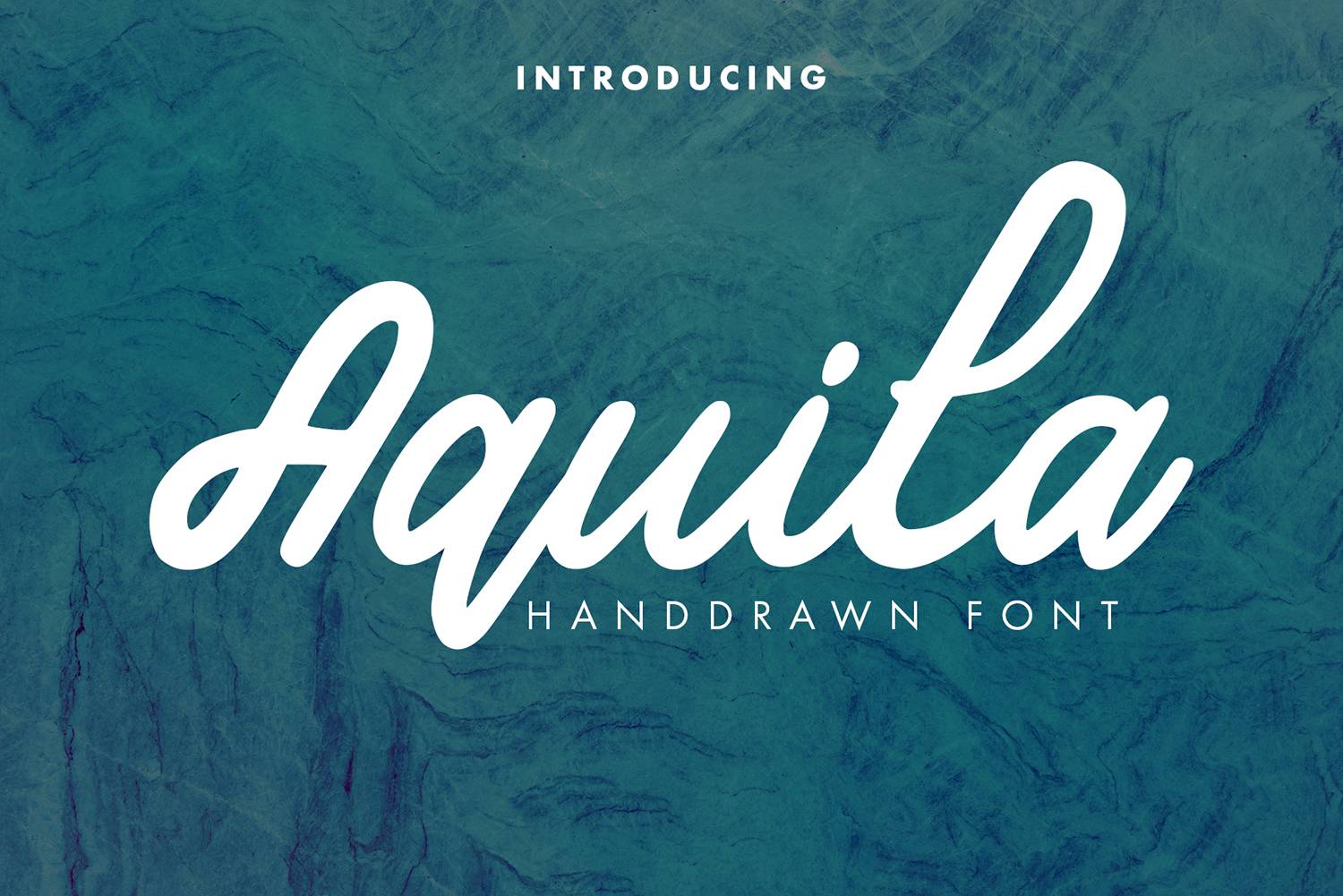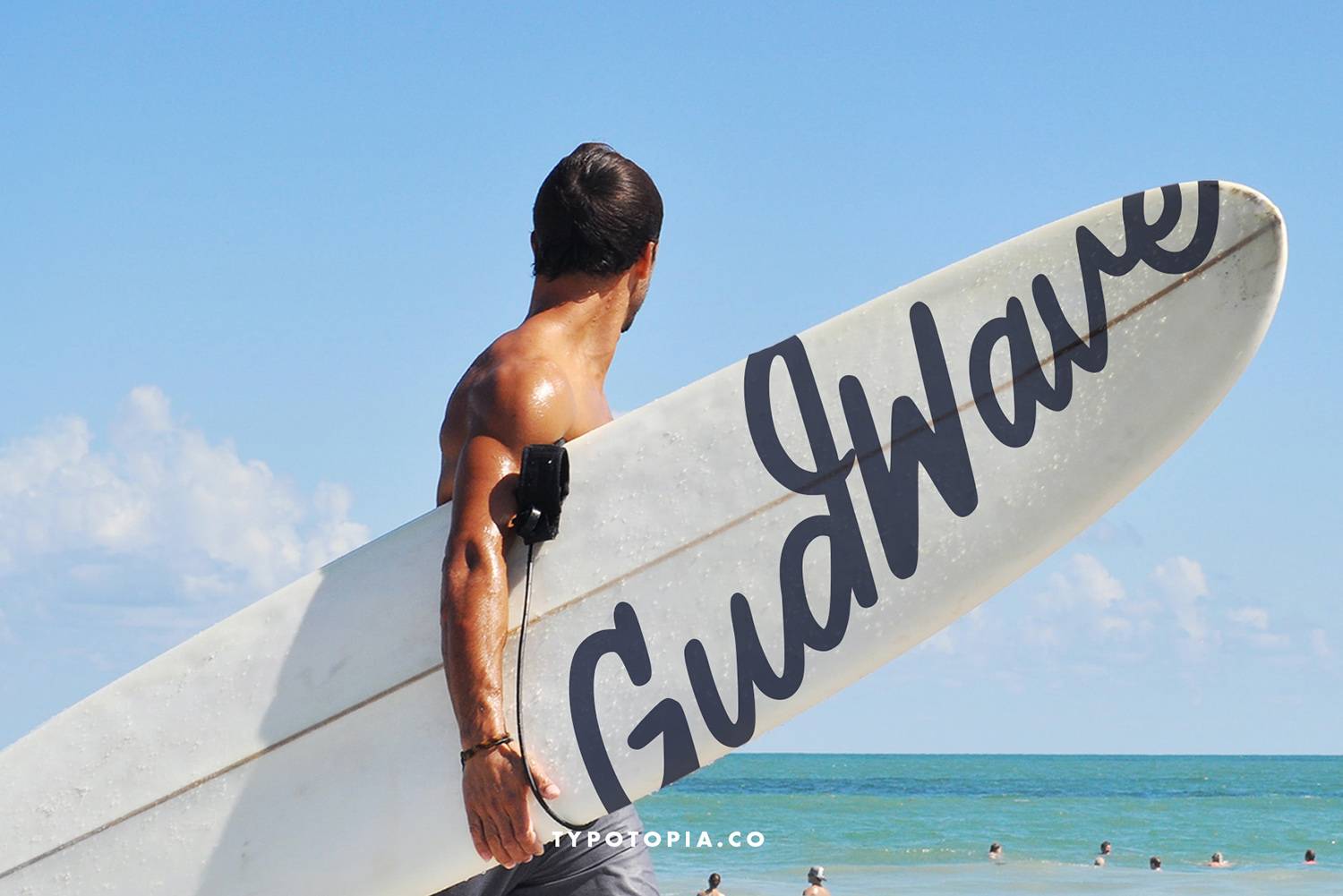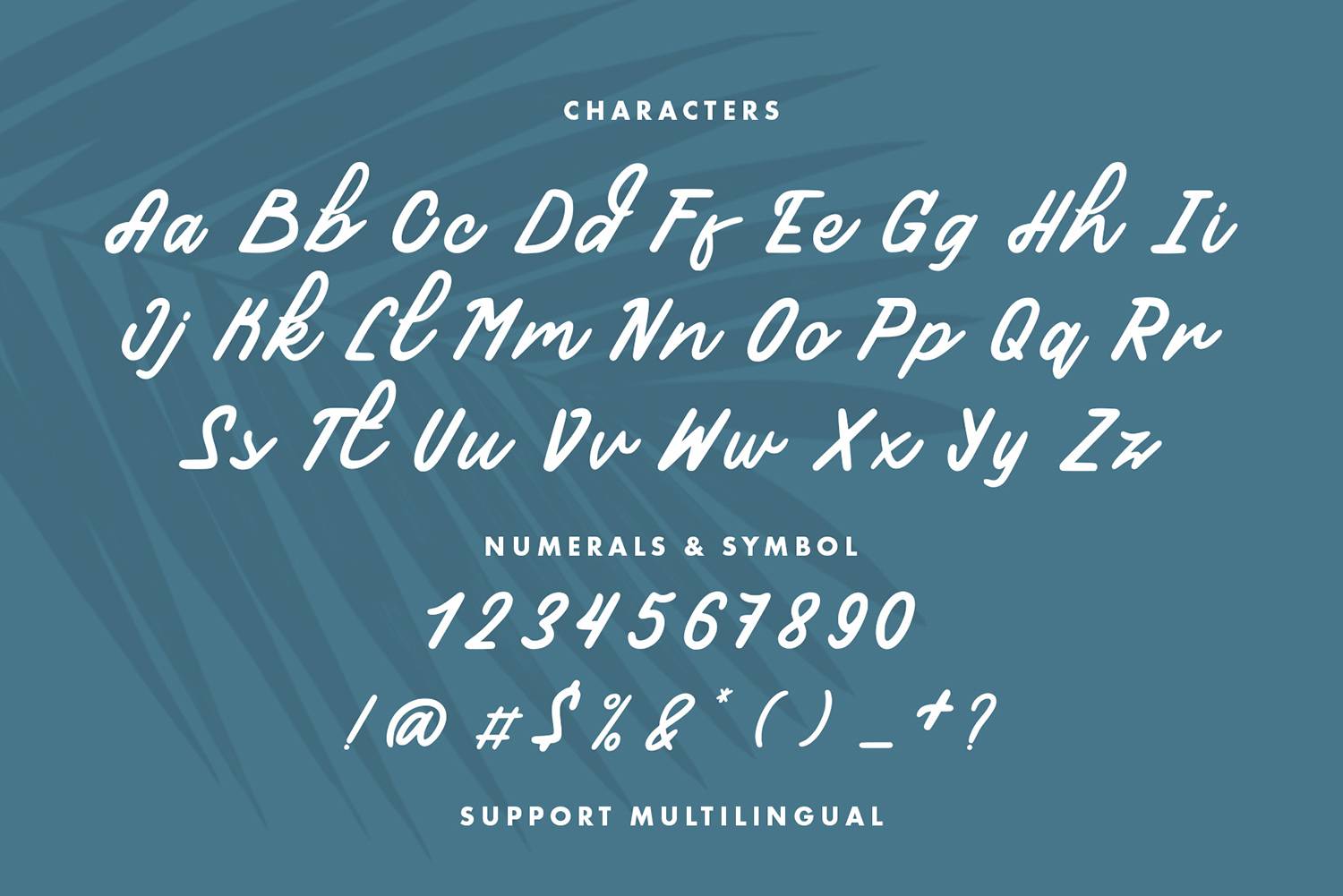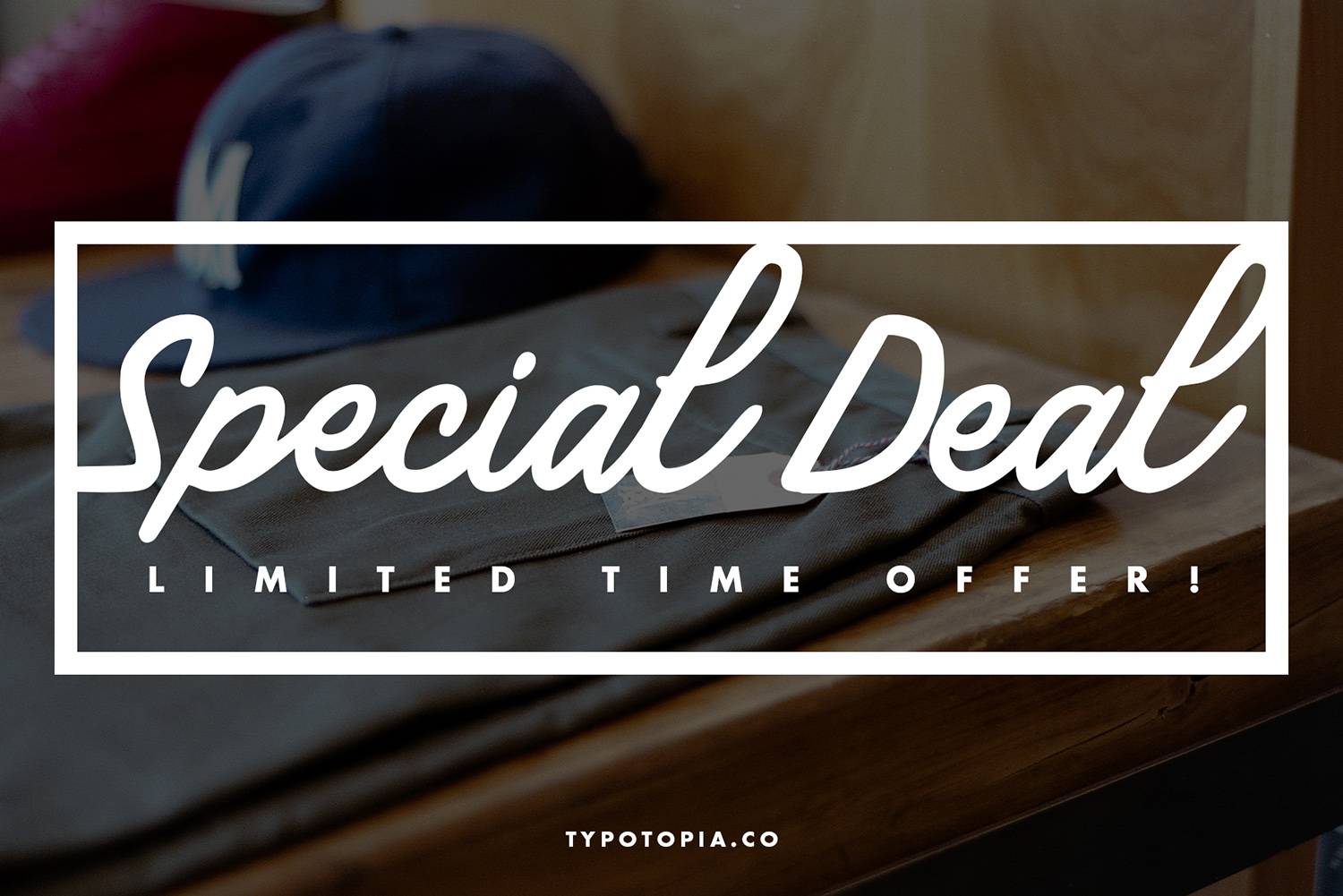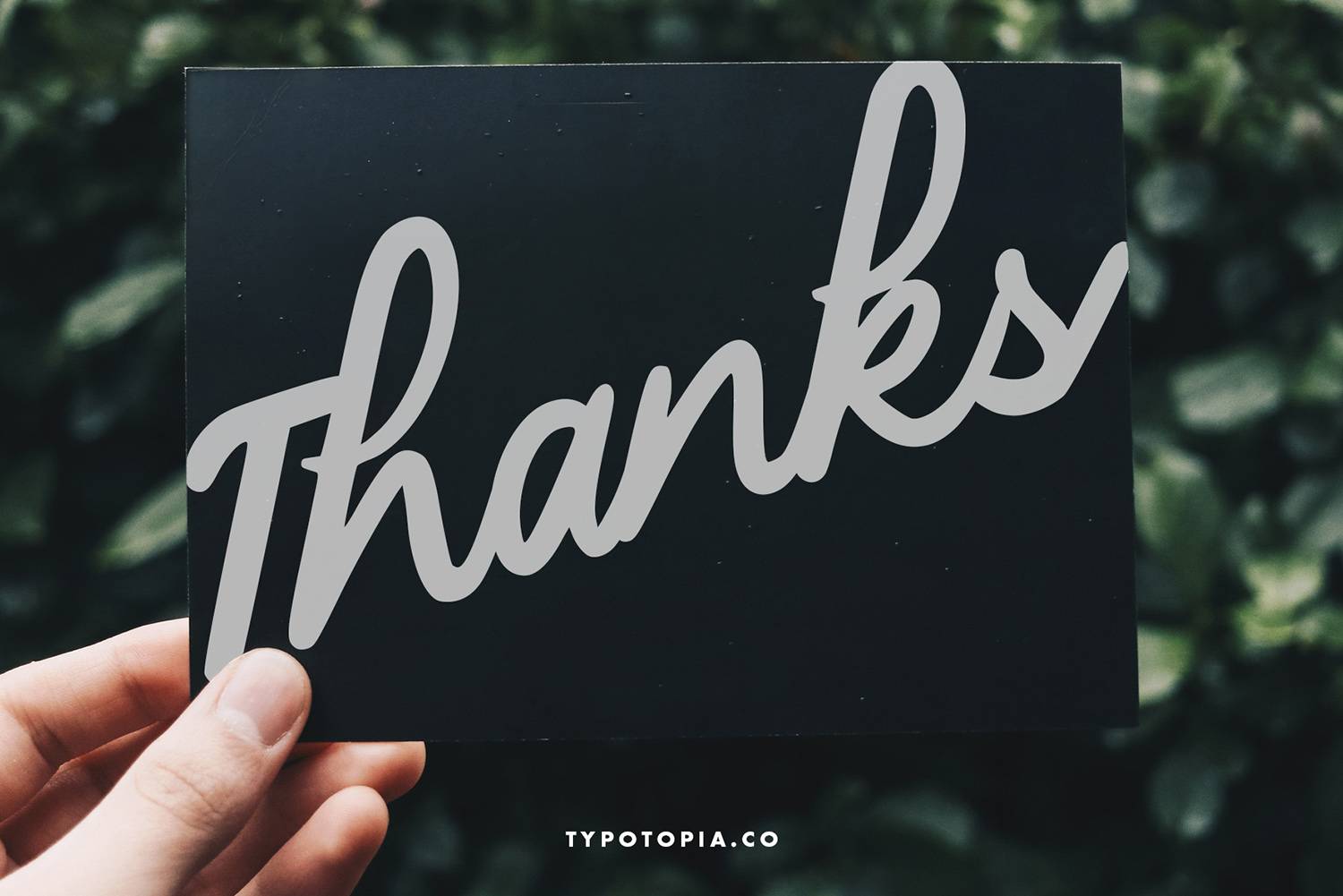
Aquila is a lively and elegant script font featuring smooth, flowing strokes with a moderately high x-height that enhances readability. Its connected letterforms and dynamic curves give it a modern yet classic handwritten feel, making it ideal for stylish branding, invitations, and creative headlines that seek a personal, friendly touch. This font works well where a warm, approachable elegance is desired, combining legibility with expressive flair.
Aquila Font
About Aquila Font